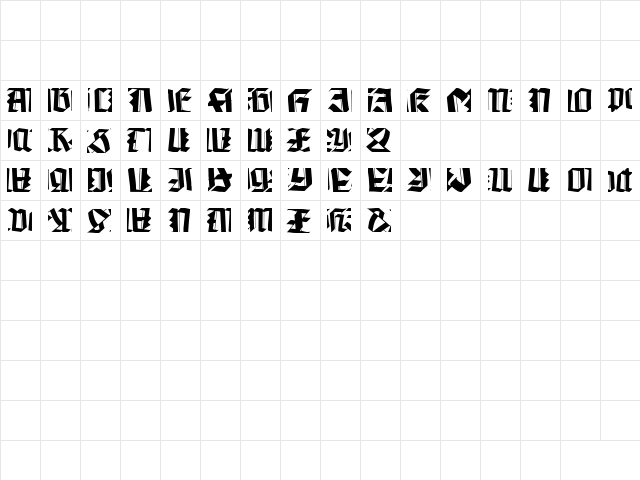
Kochfragments Regular
Design Context for Kochfragments Typeface
Kochfragments is a composed and adaptable typeface that performs quietly and consistently across a wide range of design contexts.